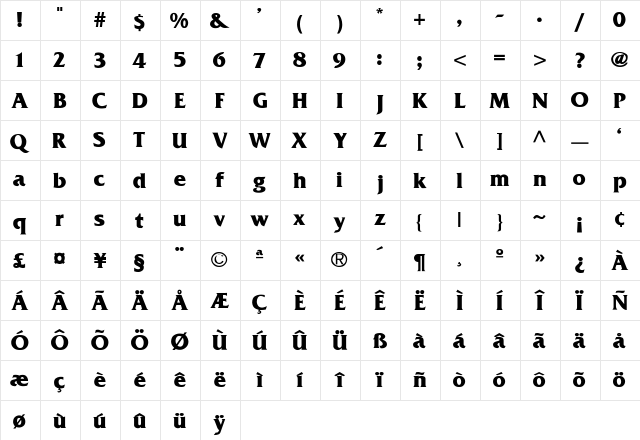
Ipolito-Bold Regular
Design Context for Ipolito-Bold Typeface
Ipolito-Bold is a composed and adaptable typeface that performs quietly and consistently across a wide range of design contexts. The heavy weight commands attention and anchors typographic hierarchies.